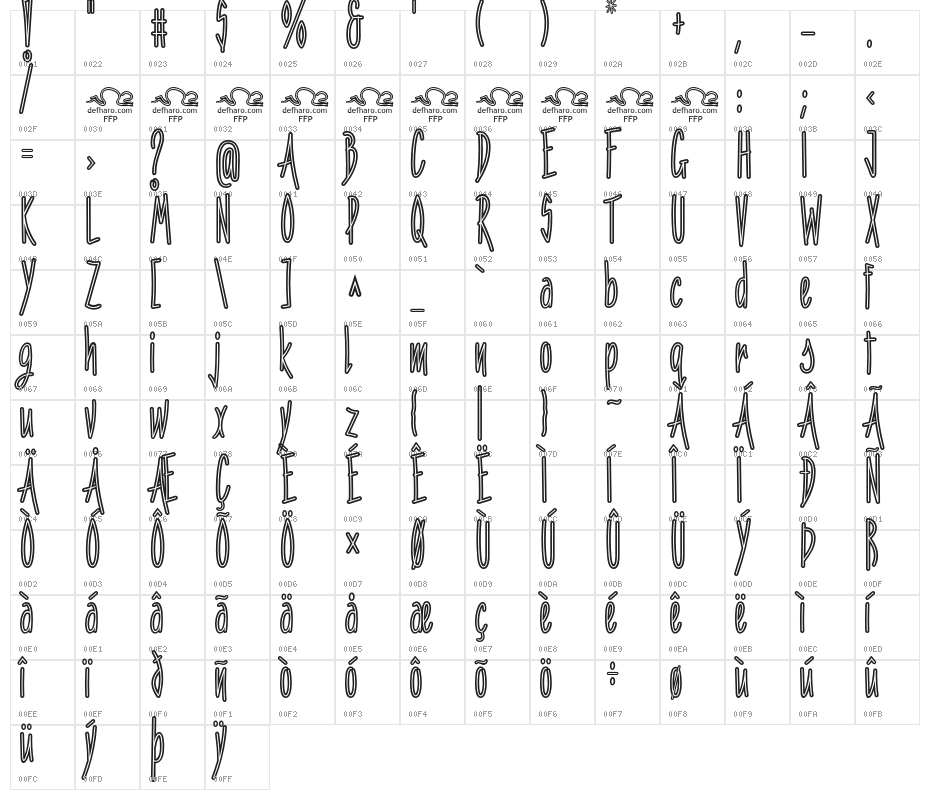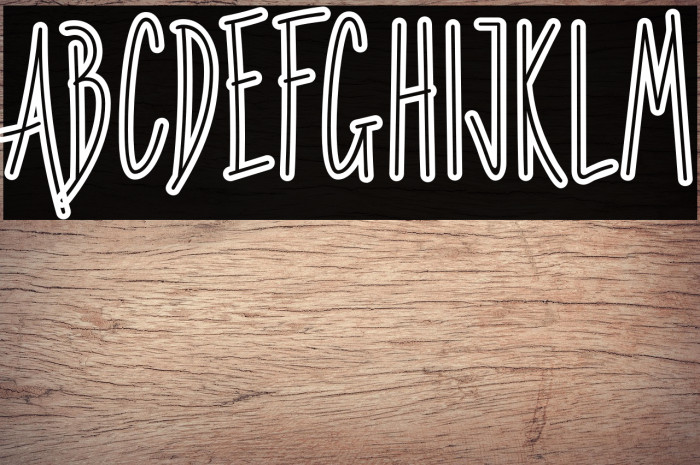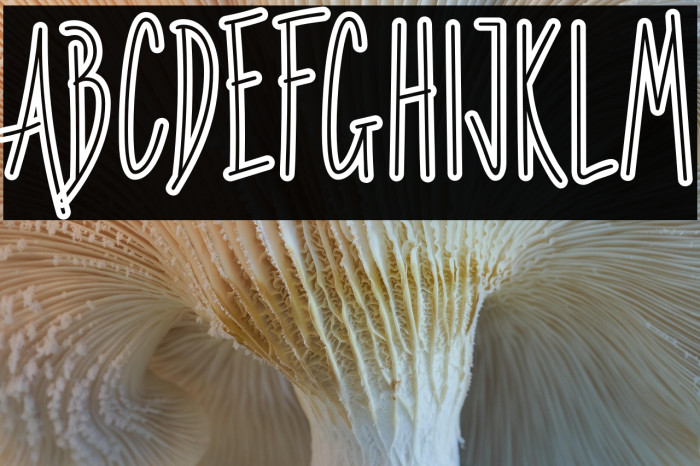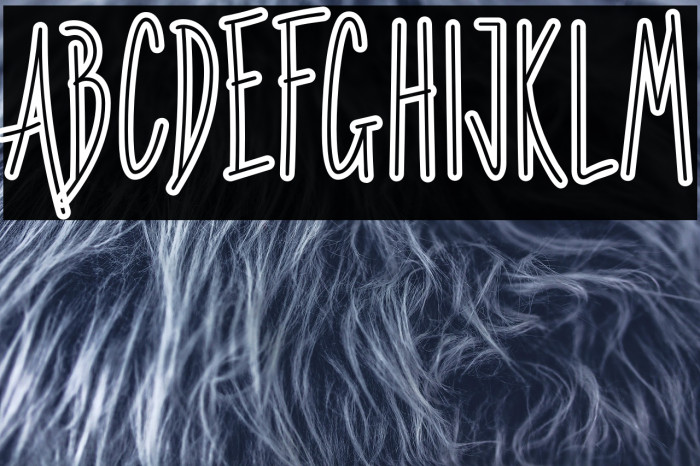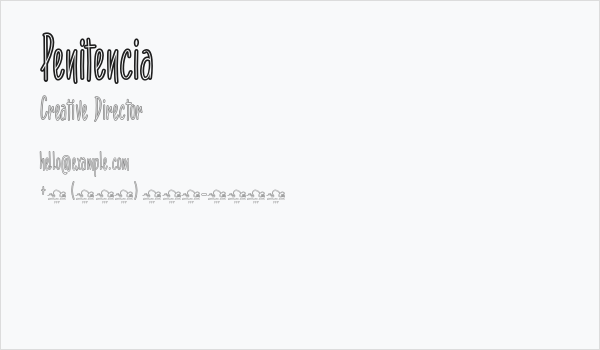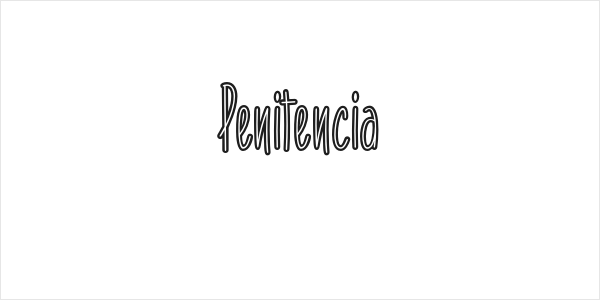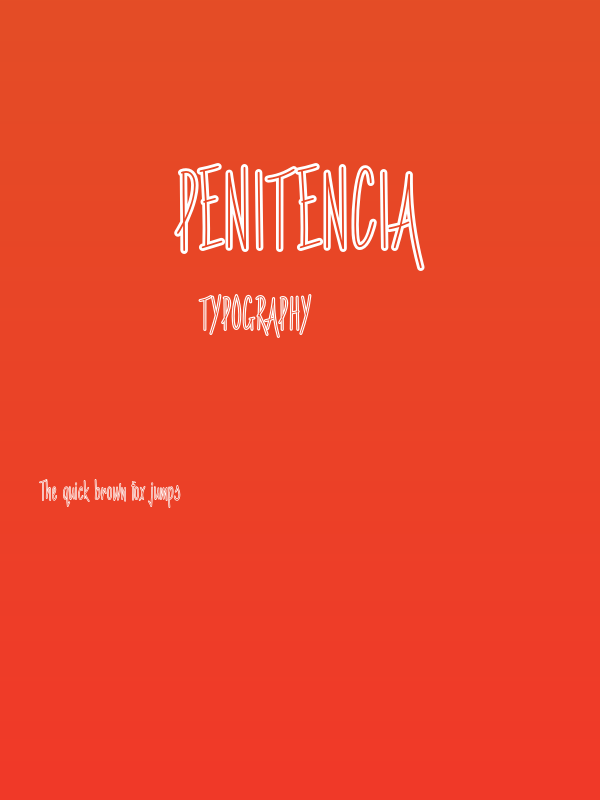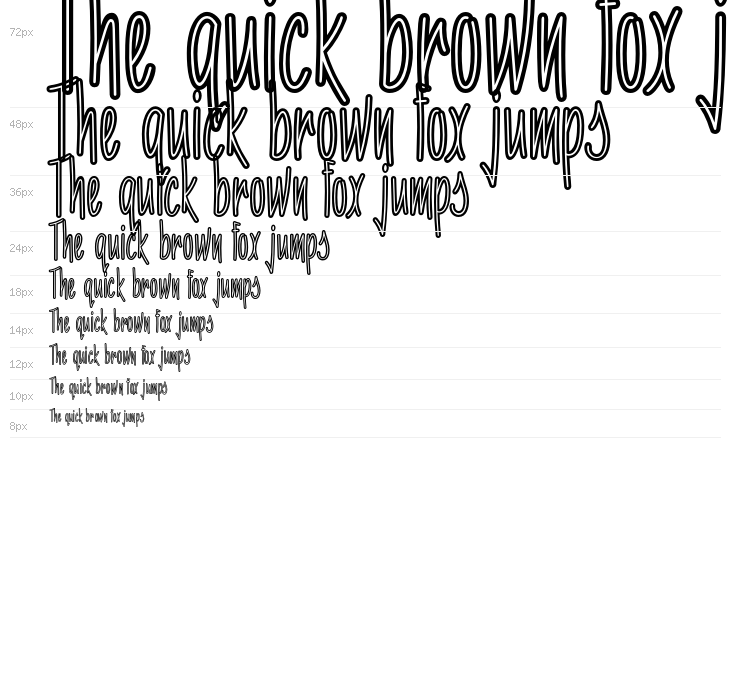
Penitencia Font
Penitencia Description
This font features a unique, decorative style with elongated, narrow characters that have a playful and artistic flair. The uppercase and lowercase letters are designed with a consistent height, creating a uniform appearance. The strokes are bold and outlined, giving the font a striking presence. The special characters maintain the same artistic style, adding to the font's cohesive look. This font is ideal for creative projects where a distinctive and eye-catching typeface is desired.
| Proposed Projects | Ideal for posters, artistic designs, branding projects, and creative invitations. |